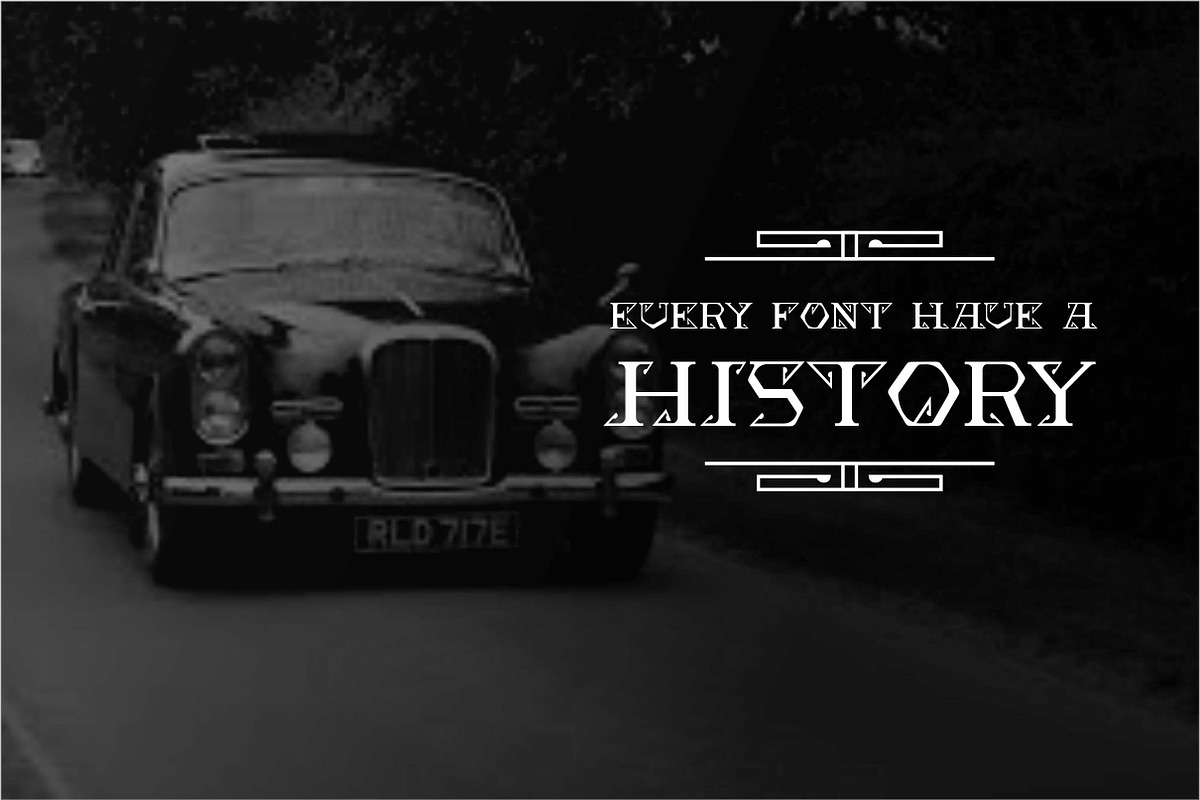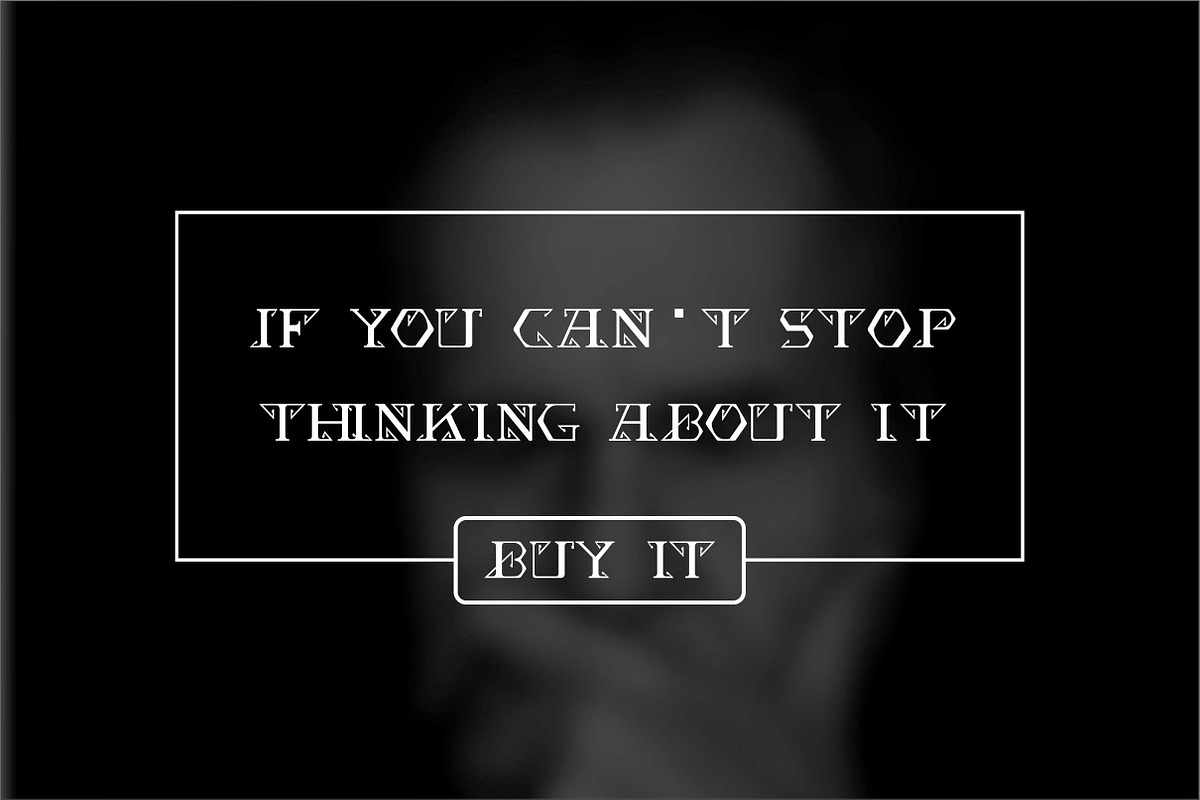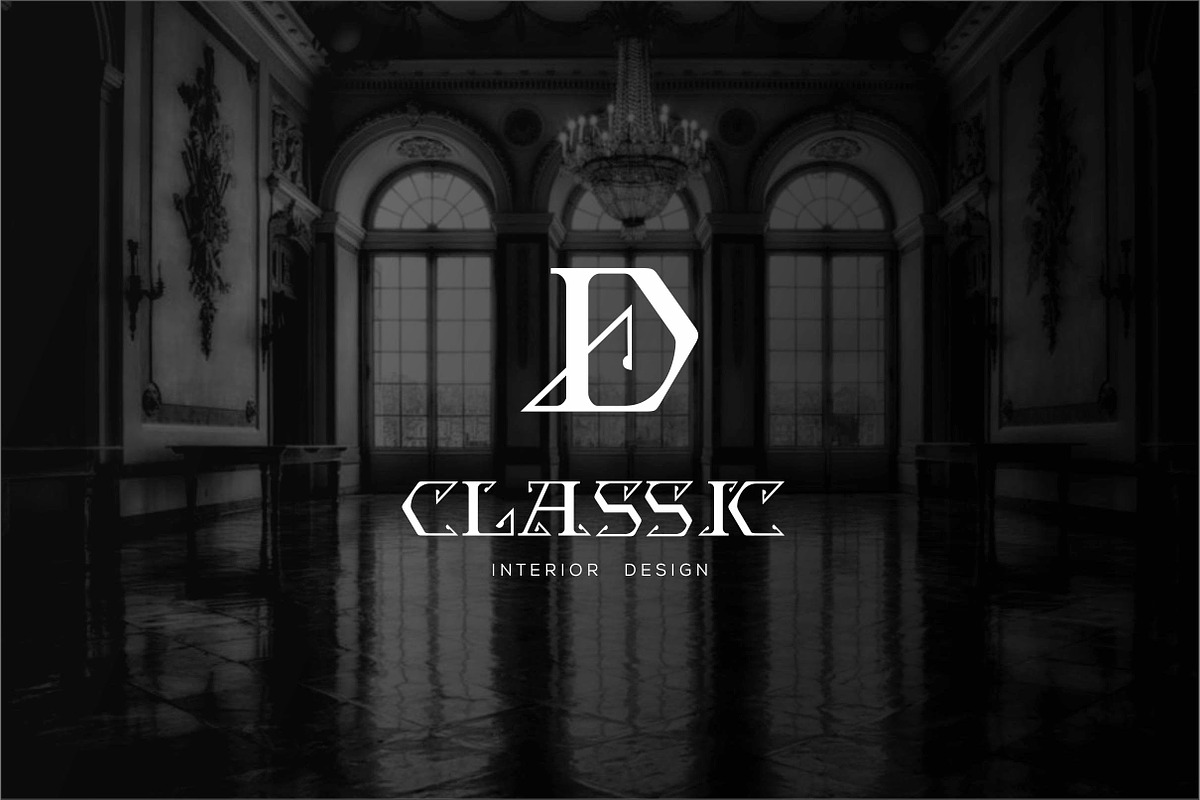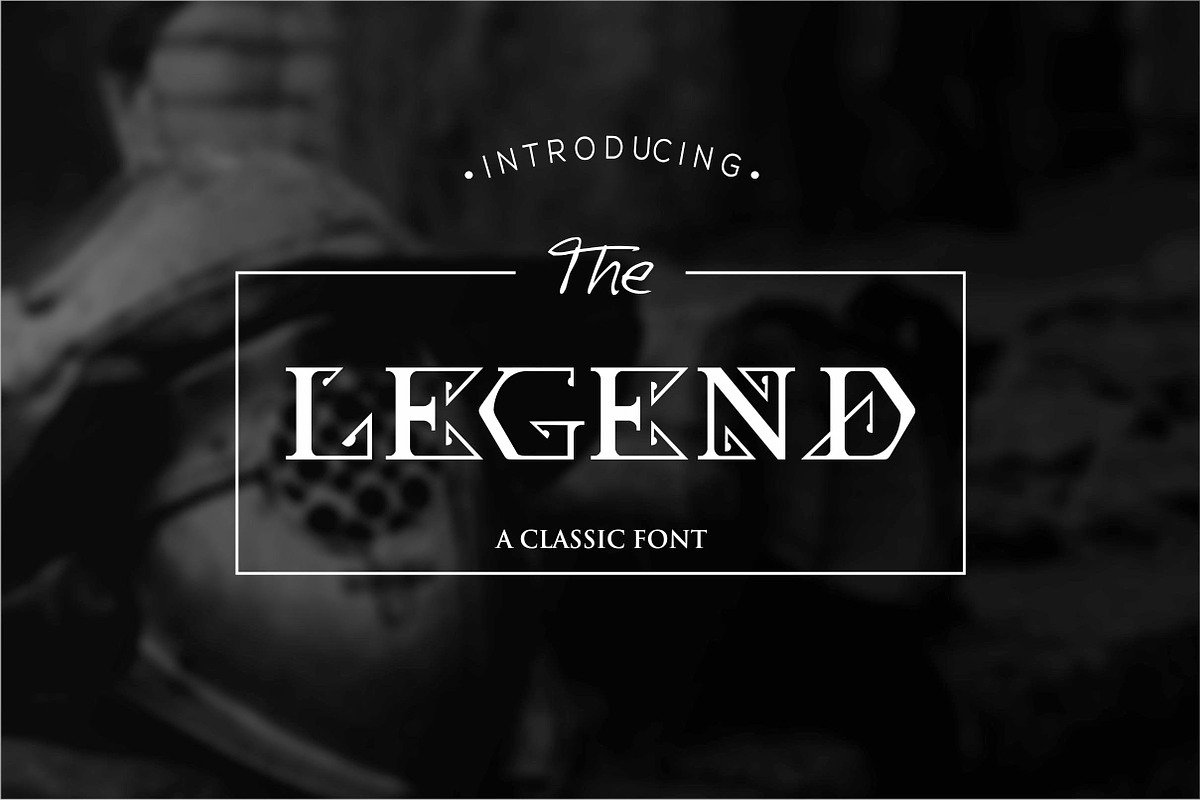
The Legend Font
Retro/Vintage/Classic style custom font with regular and bold version. TTF, OTF and WOFF formats
Why The Legend Font is worth a look
The Legend Font by Akdesain fits naturally into Branding, posters, packaging, typography.